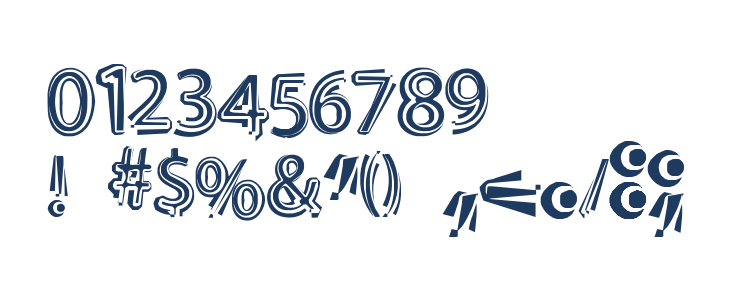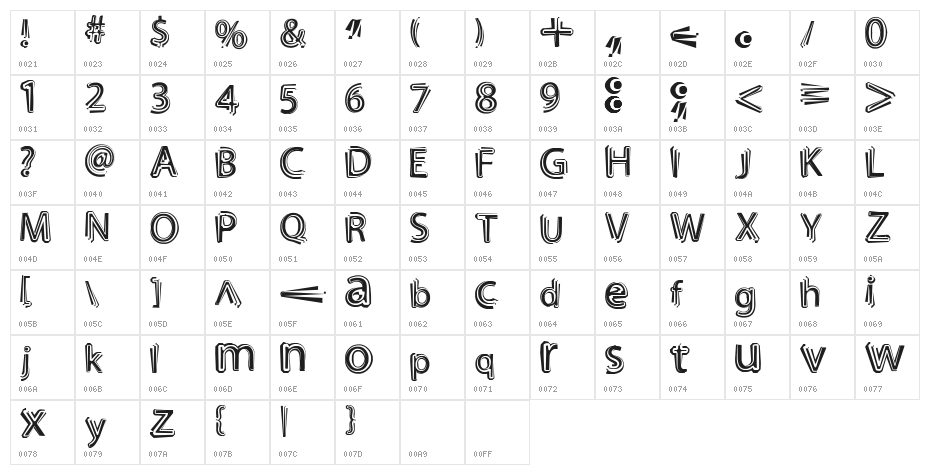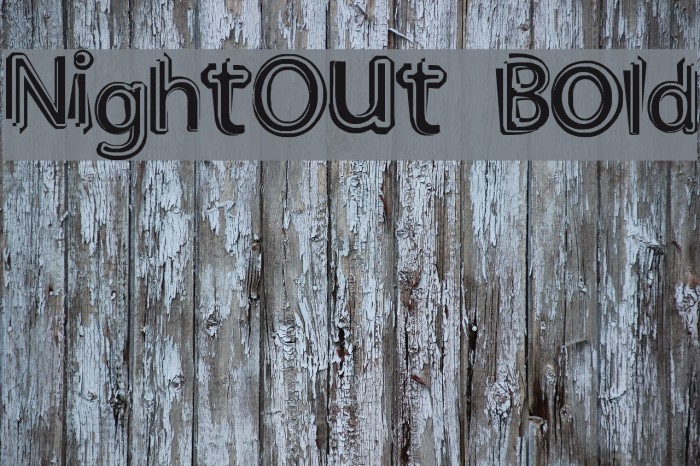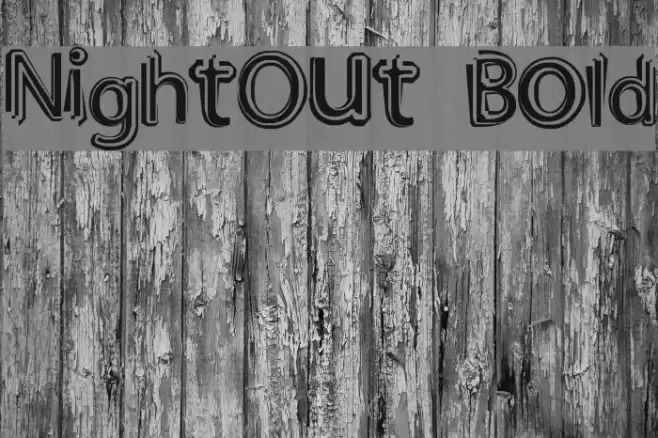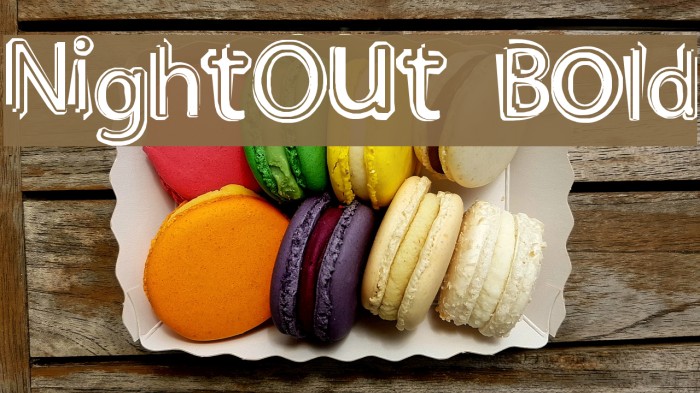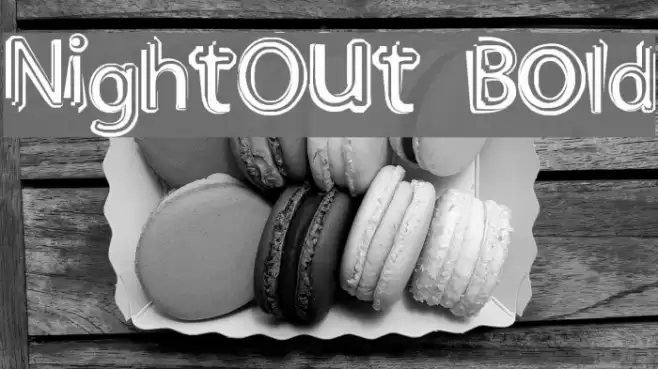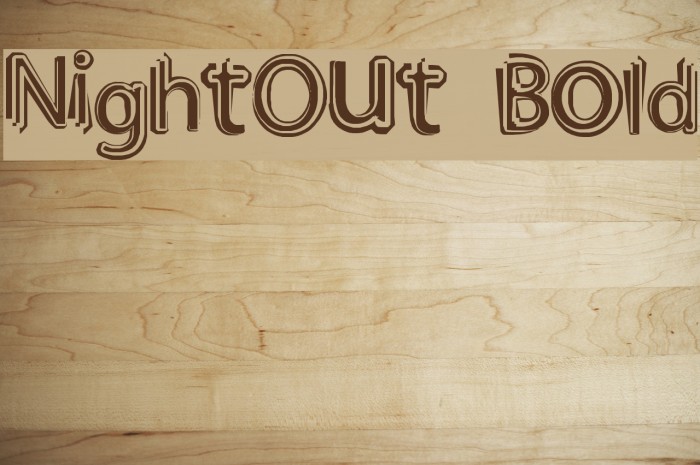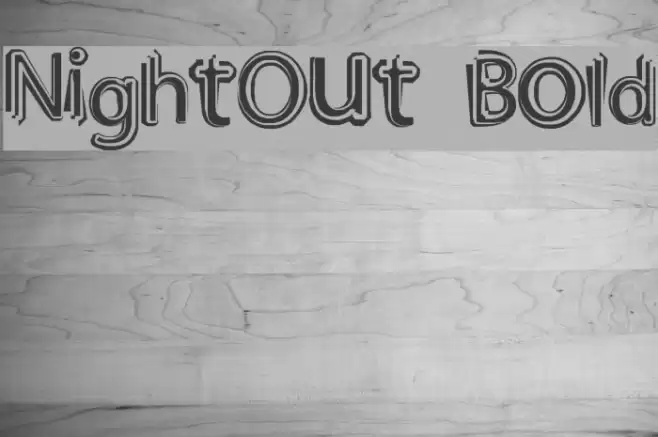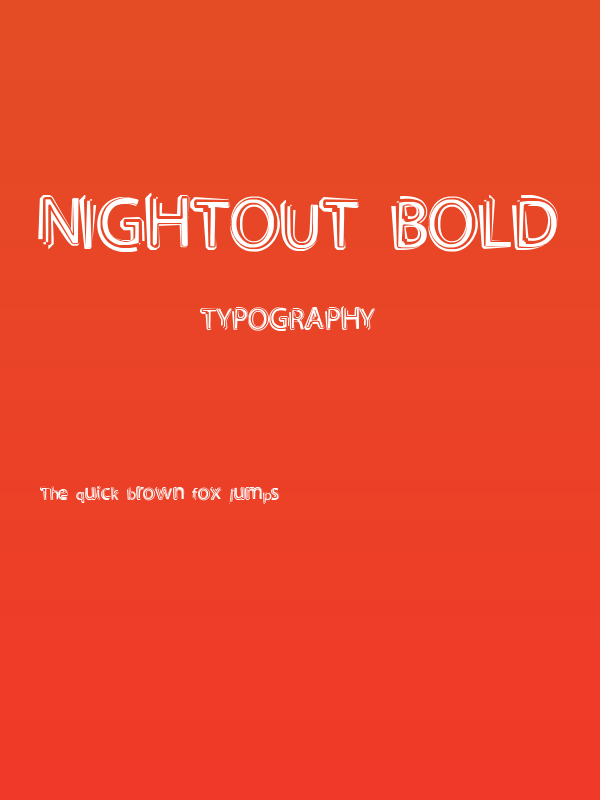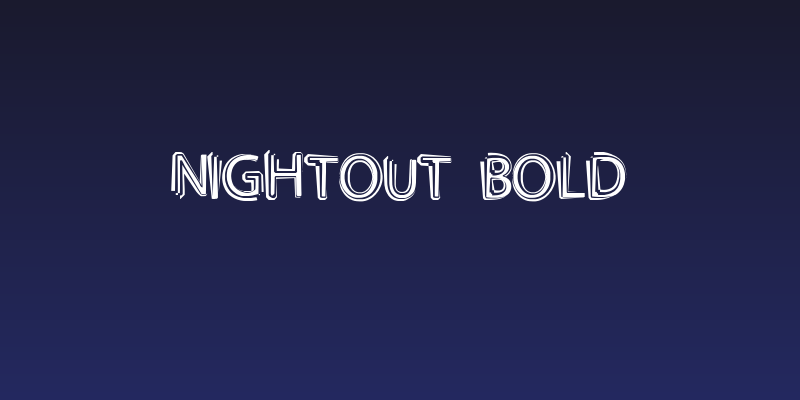
NightOut Bold Font
NightOut Bold Description
This font features a bold and dynamic style with a unique 3D shadow effect that gives it a striking appearance. The uppercase and lowercase letters are designed with a playful yet structured form, making them stand out. The numbers and special characters maintain the same boldness and shadow detail, ensuring consistency across all characters. The font's design is modern and eye-catching, suitable for projects that require a strong visual impact.
| Proposed Projects | Ideal for posters, event flyers, branding materials, and any design needing a bold statement. |